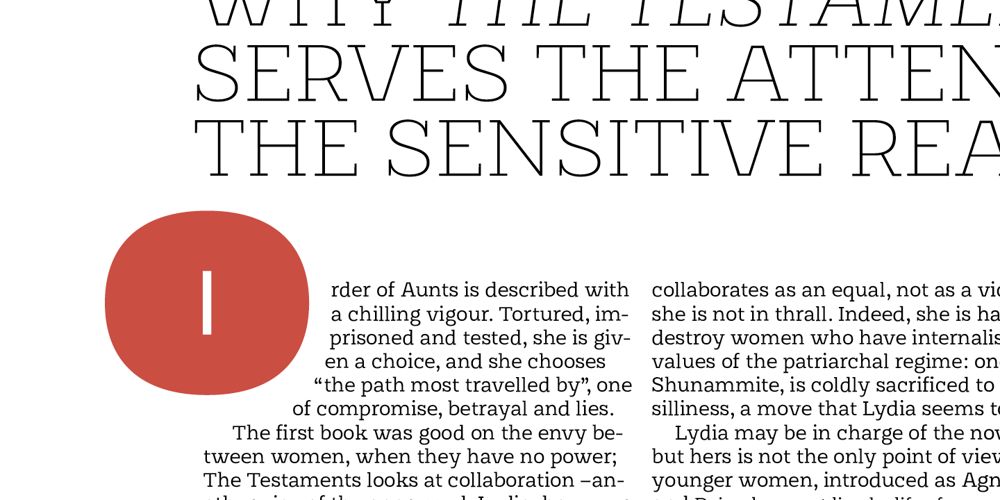
Rothwood Font Family was designed by José Manuel Urós and published by Type-Ø-Tones. Rothwood contains 14 styles and family package options. In 2011, while tutoring an exercise on Slab Serifs, Josema discovered Robert Thorne’s work for Thorowgood. Specifically, he was fascinated by the extraordinary density of the 6-line Egyptian Pica from 1820-21.As a simple exercise, he wanted to test the limits of readability within the context of a contemporary alphabet. Rothwood Ultra is the result of this experiment.As a way of developing the series, he found it interesting to go to the opposite end of the spectrum and discover how to evolve the extra-black Ultra’s DNA into a super lightweight model. The Hairline and Thin styles are her slim sisters. The third challenge has been the creation of the text version. Light, Book, DemiBold and Bold, including italics and Small Caps close the Rothwood cycle for editorial use.